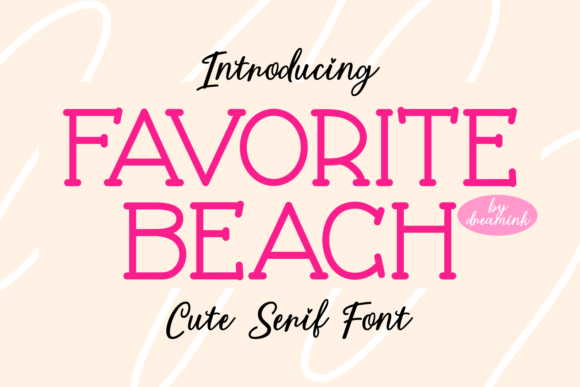
Discover the Charm of Favorite Beach Font: Elevate Your Designs with a Touch of Sweetness
When it comes to selecting the perfect font for your design projects, the options can be overwhelming. However, if you’re looking for a font that embodies warmth, friendliness, and a touch of sweetness, look no further than Favorite Beach. This adorable serif font has been making waves in the design community, and for good reason. Its charming curves and inviting demeanor make it an ideal choice for a wide range of projects, from greeting cards and social media posts to websites and marketing materials.
The Allure of Favorite Beach Font
Favorite Beach font is more than just a collection of letters; it’s an experience. Its unique blend of classic serif elements and modern charm creates a distinctive look that’s both nostalgic and fresh. The font’s design is characterized by its smooth curves, gentle lines, and a warm, welcoming vibe that instantly captures the viewer’s attention. Whether you’re aiming to create a whimsical design or a more sophisticated look, Favorite Beach adapts seamlessly to your creative vision.
One of the standout features of Favorite Beach is its versatility. This font isn’t limited to a specific style or medium; it can be used across various platforms and design applications. Imagine crafting a heartfelt greeting card that feels like a warm hug, or creating a social media post that exudes friendliness and approachability. With Favorite Beach, you can achieve these effects and more, making your designs feel more personal and engaging.
Why Choose Favorite Beach Font?
So, what makes Favorite Beach font a standout choice for designers? Let’s explore some of its key benefits:
- Unique Aesthetic: Favorite Beach offers a distinctive look that sets it apart from more common fonts. Its blend of traditional serif elements with a modern, friendly twist gives your designs a unique edge.
- Versatility: Whether you’re working on print materials, digital content, or web design, Favorite Beach adapts beautifully across different mediums. Its clear and readable design ensures that your message is conveyed effectively, no matter where it’s used.
- Emotional Connection: Fonts have the power to evoke emotions, and Favorite Beach excels in creating a warm and inviting atmosphere. This font helps you connect with your audience on a personal level, making your designs feel more approachable and relatable.
- Ease of Use: Despite its sophisticated appearance, Favorite Beach is incredibly easy to use. Its well-crafted design ensures that it remains legible even at smaller sizes, making it suitable for a wide range of applications.
Applications of Favorite Beach Font
Favorite Beach font is incredibly versatile, making it suitable for a variety of design projects. Here are some popular applications where this charming font truly shines:
- Greeting Cards: Add a personal touch to your greeting cards with Favorite Beach. Its sweet and inviting style makes it perfect for birthdays, holidays, and other special occasions.
- Social Media Posts: Stand out on social media with eye-catching posts that use Favorite Beach. The font’s friendly demeanor helps increase engagement and makes your content more relatable.
- Web Design: Enhance your website’s aesthetic with Favorite Beach. Its clean and readable design ensures a great user experience, while its unique style helps establish your brand’s personality.
- Marketing Materials: From brochures and flyers to posters and banners, Favorite Beach adds a touch of warmth and approachability to your marketing materials, helping you connect with your target audience.
Tips for Using Favorite Beach Font Effectively
To get the most out of Favorite Beach font, consider the following tips:
- Pair with Complementary Fonts: While Favorite Beach is beautiful on its own, pairing it with complementary fonts can enhance its appeal. Consider combining it with a clean sans-serif font for headings and body text.
- Adjust Font Sizes: Experiment with different font sizes to create visual hierarchy in your designs. Larger sizes can be used for headings, while smaller sizes work well for body text.
- Play with Colors: Favorite Beach looks great in a variety of colors. Experiment with different color schemes to find the one that best suits your design’s mood and purpose.
- Use it Sparingly: While Favorite Beach is a charming font, using it sparingly can make it more impactful. Consider using it for key messages or highlights in your design.
Favorite Beach font is a delightful addition to any designer’s toolkit. Its unique blend of classic charm and modern friendliness makes it perfect for creating inviting and engaging text. Whether you’re designing greeting cards, social media posts, or websites, Favorite Beach brings a warm and welcoming vibe to your words. By incorporating this adorable serif font into your projects, you can elevate your designs and connect with your audience on a more personal level.
So, why settle for ordinary fonts when you can make your designs truly special with Favorite Beach? Explore its possibilities today and discover how this charming font can transform your creative projects into something truly memorable.